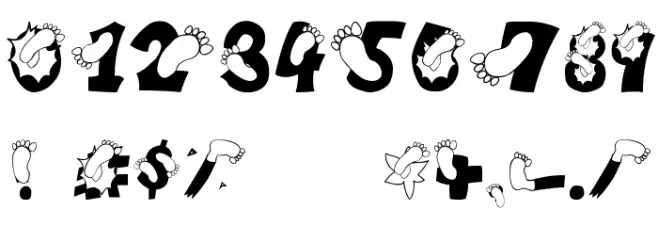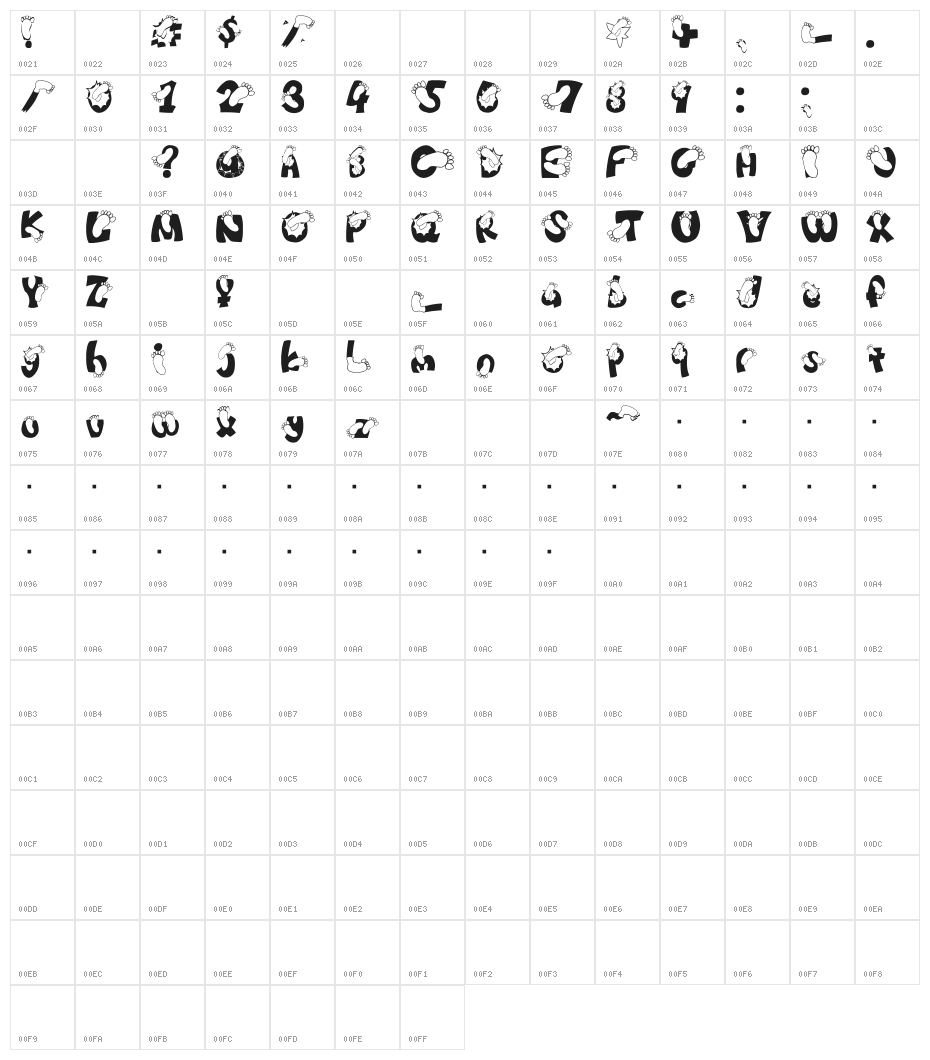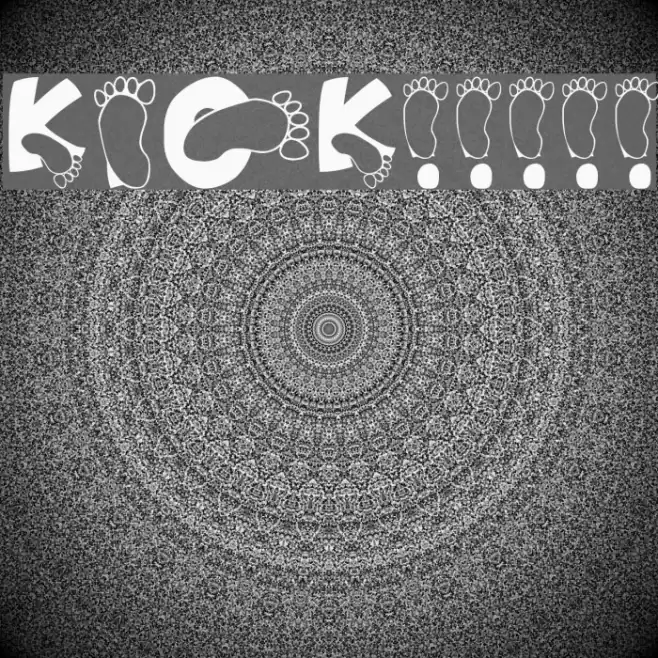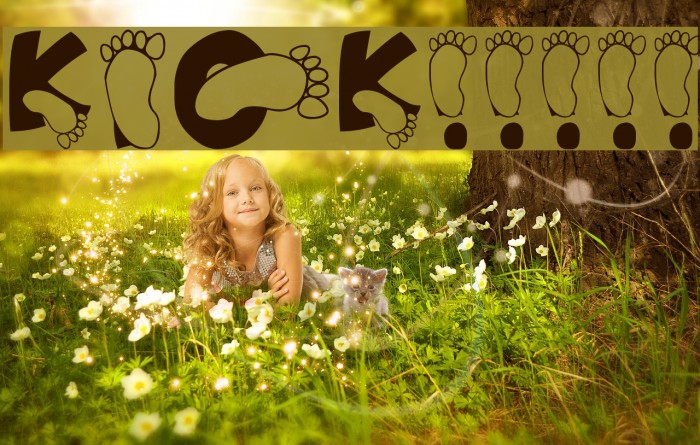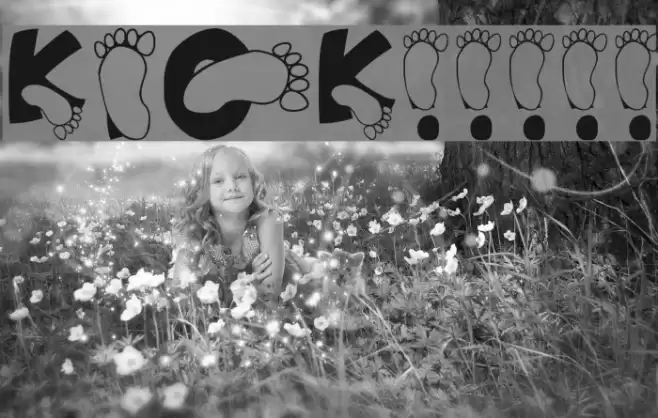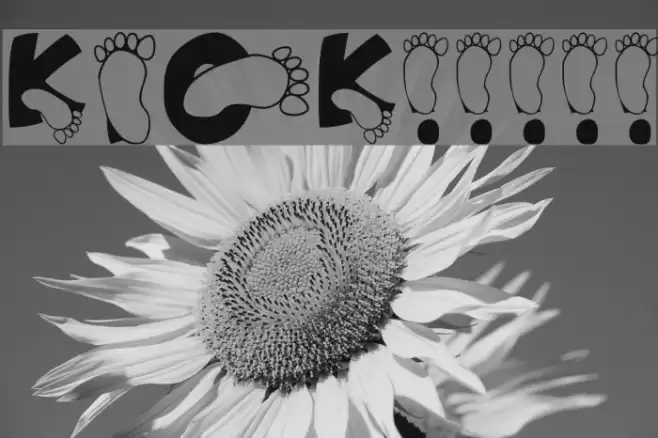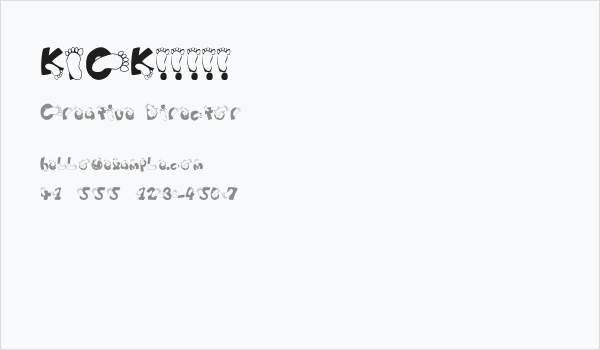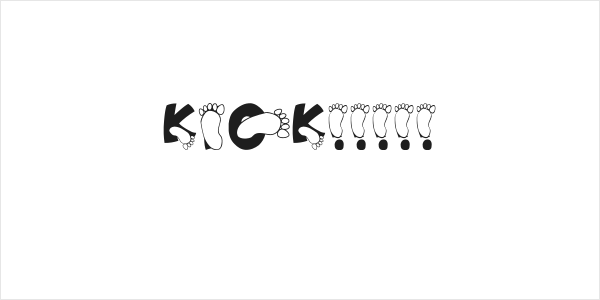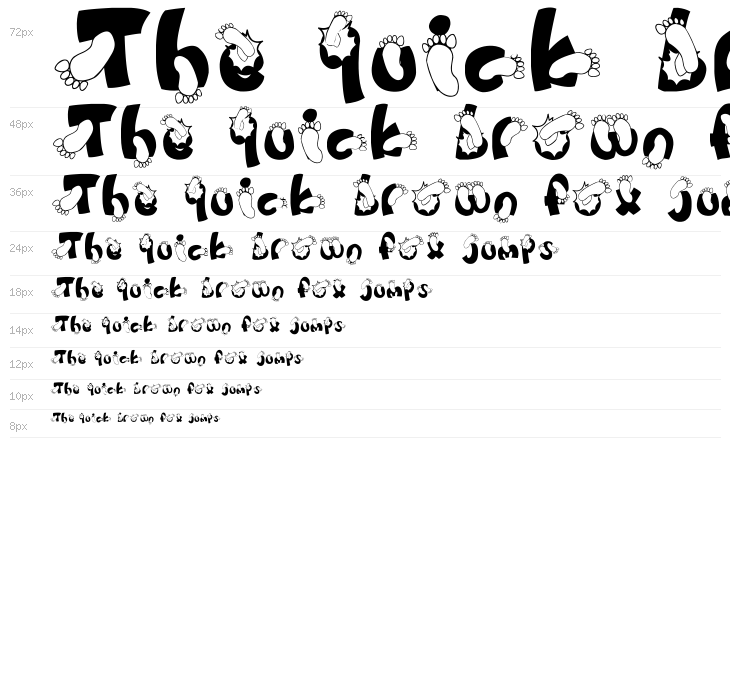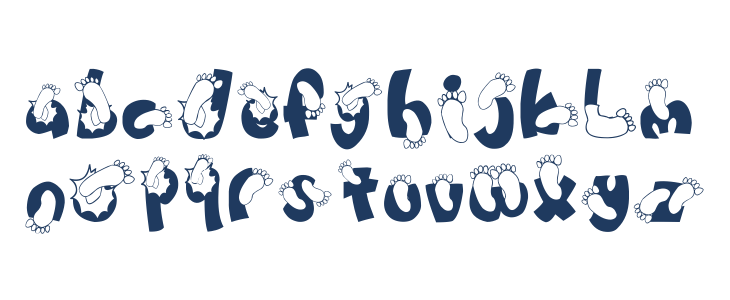
KICK!!!!! Font
KICK!!!!! Description
This playful and whimsical font features bold, rounded characters with a unique twistΓ’β¬βeach letter is adorned with cartoonish feet, giving it a lively and humorous appearance. The design is highly decorative, making it stand out with its quirky and fun style. The font maintains a consistent weight throughout, with each character having a solid, filled-in look. The feet add an element of surprise and creativity, making it ideal for projects that aim to capture attention and convey a sense of fun and playfulness. The overall style is distinctly modern and decorative, perfect for children's materials, playful branding, or any project that benefits from a lighthearted touch.
| Proposed Projects | Ideal for children's books, playful branding, party invitations, and creative advertising. |